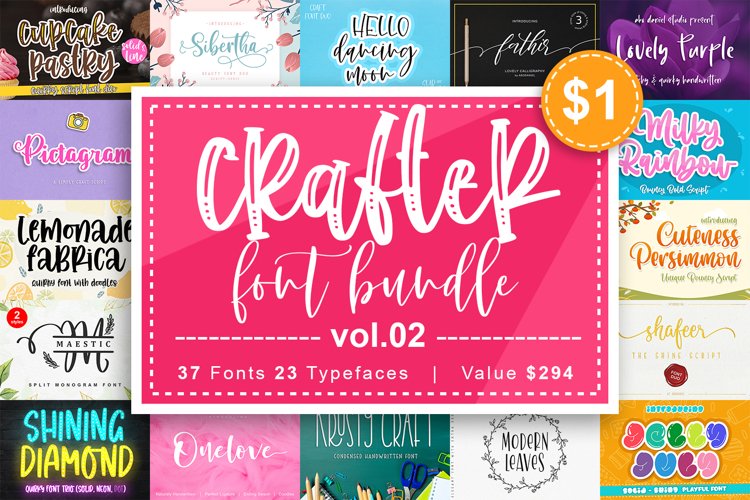
Crafter Font Bundle Vol. 2
Cuties Magenta Doodles
Cuteness Persimmon
Chester Network
Jelly July Bold
Lemonade Fabrica Doodle
Doodlez Forever
cupcake pastry solid
Cuties Magenta
dancing moon slab
Jelly July Solid
krusty craft
Lemonade Fabrica
Maestic Split
Lovely Purple
dancing moon script
Modern Leaves Doodle
Modern Leaves
Sibertha script alternate
Jelly July Shiny
Sibertha script swash
milky rainbow
Sibertha script titling
cupcake pastry line
Shafeer Descript
Shining Diamond Solid
Pictagram
Pictagram italic
Sibertha serif
Maestic
Fathir Alt Caps
Sibertha script
Greatest Holiday Slant
Shafeer
Shining Diamond Dot
Maestic B Split
Greatest Holiday
Onelove
Shining Diamond Neon
Maestic B
Fathir Script
Blackcode Sans Clean
Blackcode Sans Rough
Hey Milenia Slant
Hey Milenia
Blackcode Script Clean
Blackcode Script Rough
Blackcode Sans Stamp
Blackcode Script Stamp
The Crafter Font Bundle Vol.02
The bundle is including various crafty and quirky fonts from our best collection.
• 37 Fonts from 23 Typefaces
• Various style
• Doodles